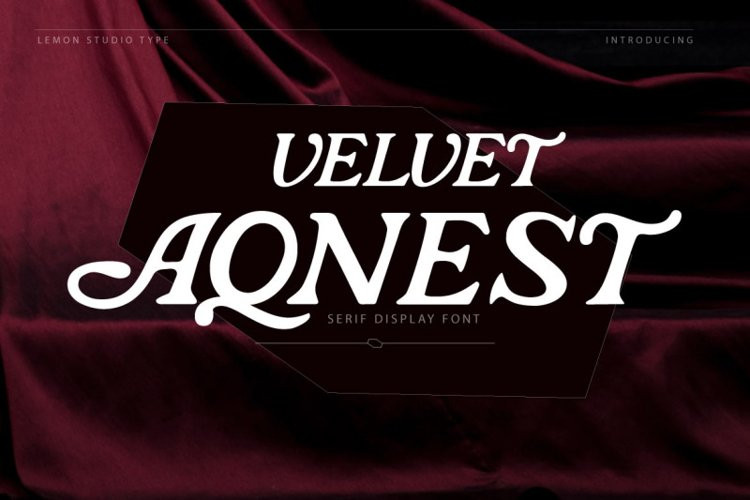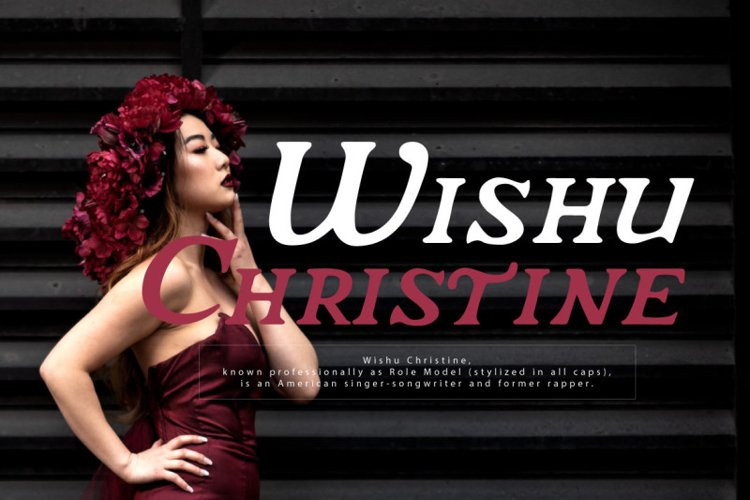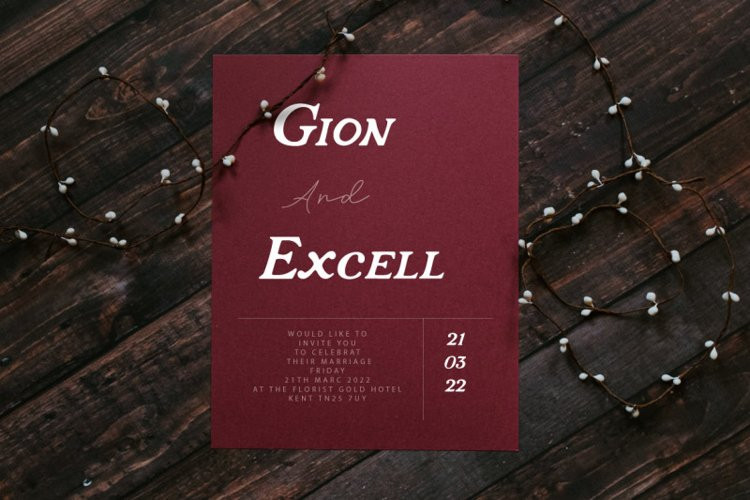
Velvet Aqnest Font
Velvet Aqnest FontVelvet Aqnest is a display serif font. It was perfectly represents vintage esthetics in a contemporary serif typeface.
Velvet Aqnest matches applies in some designs such as the logotype, brand, magazine, website or blog headlines, packaging, branding, quotes, business cards and more custom design.